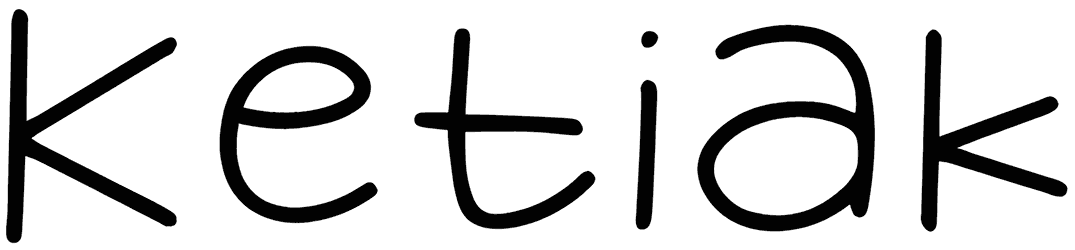
Ketiak Font
Designed byKhurasan
Ketiak is not the same as other handwriting fonts. A little human error styling, a thin line like a pen, and a bit of childish design are the ingredients to creating this font, which would be perfect for kids’ birthday party cards, cartoons, and kindergarten banners.